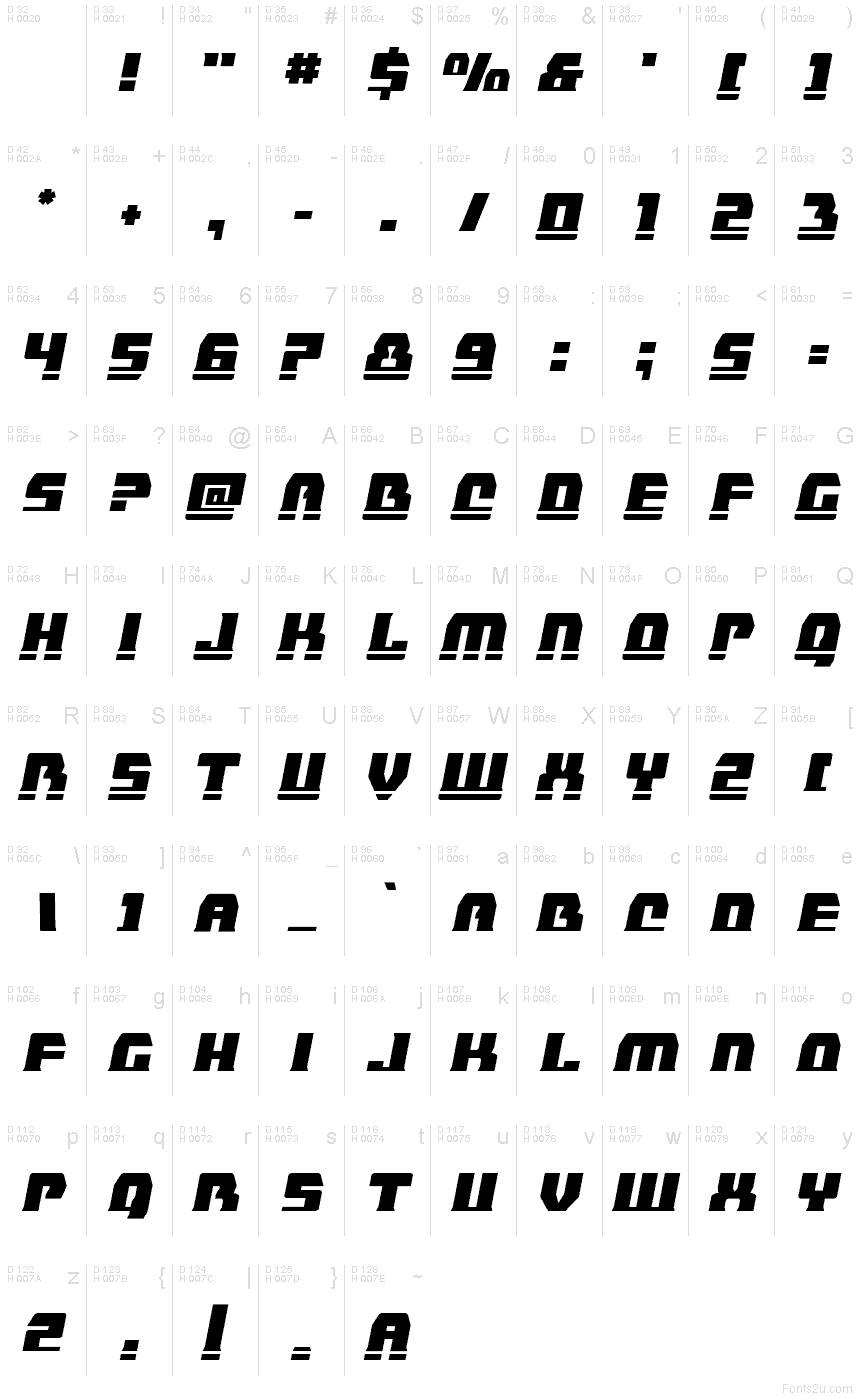
Librator Bar Expanded Italic
Librator Bar Expanded Italic font by Iconian Fonts is a free display font with a techno style inspired by retrotechnology. Energetic and powerful, it displays the right angles allowing designers to create futuristic scenes with an edgy feel. The bold expanded characters allow a more creative approach that becomes evident in every design.
Use the uppercase typeface for logotypes or branding designs like emblems, badges, etc. It is also a perfect choice for poster artwork design whether printed or digital. Try it on titles and headlines too or magazine cover designs. Players will enjoy this aesthetic in video games of many genres.